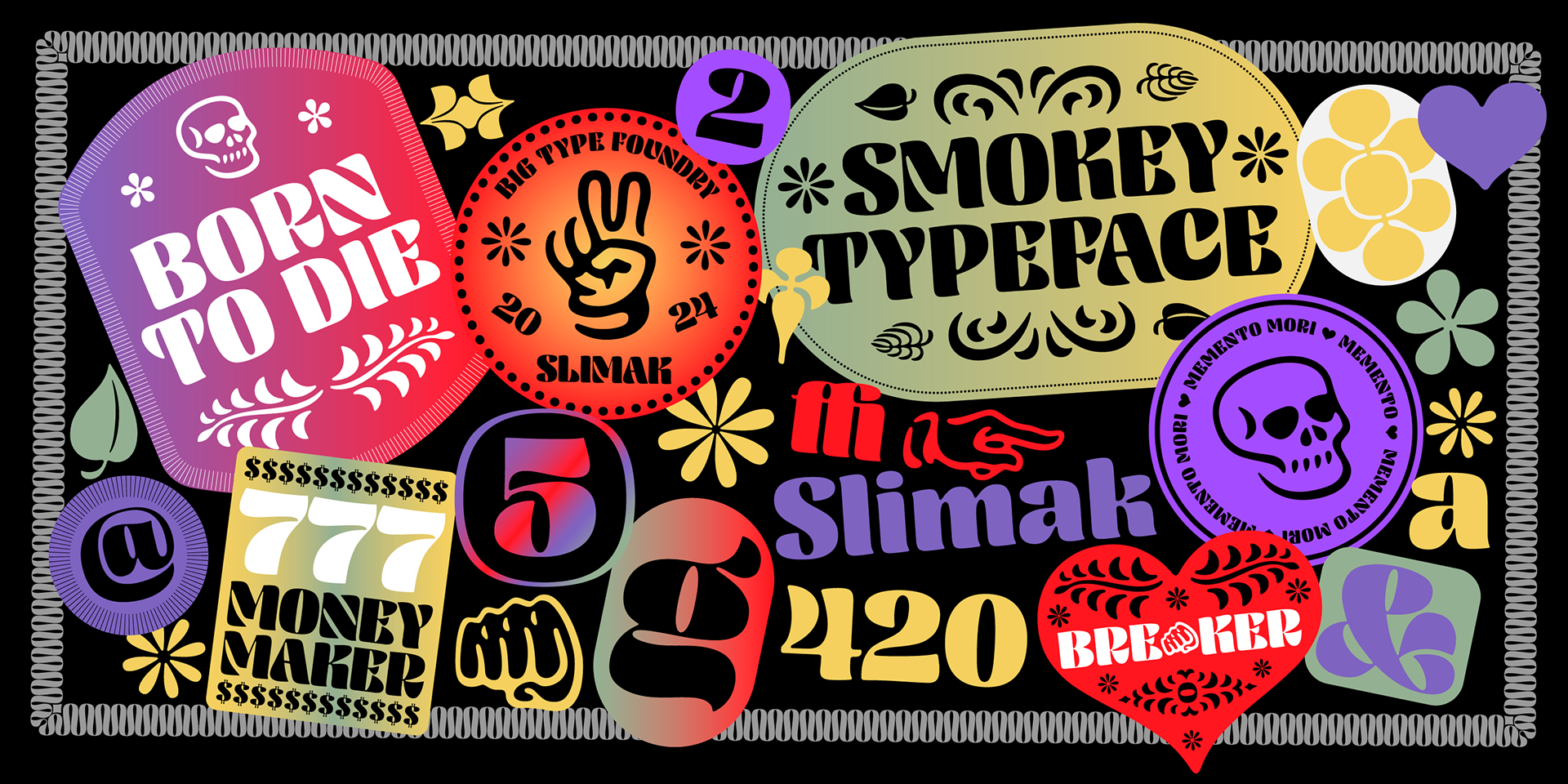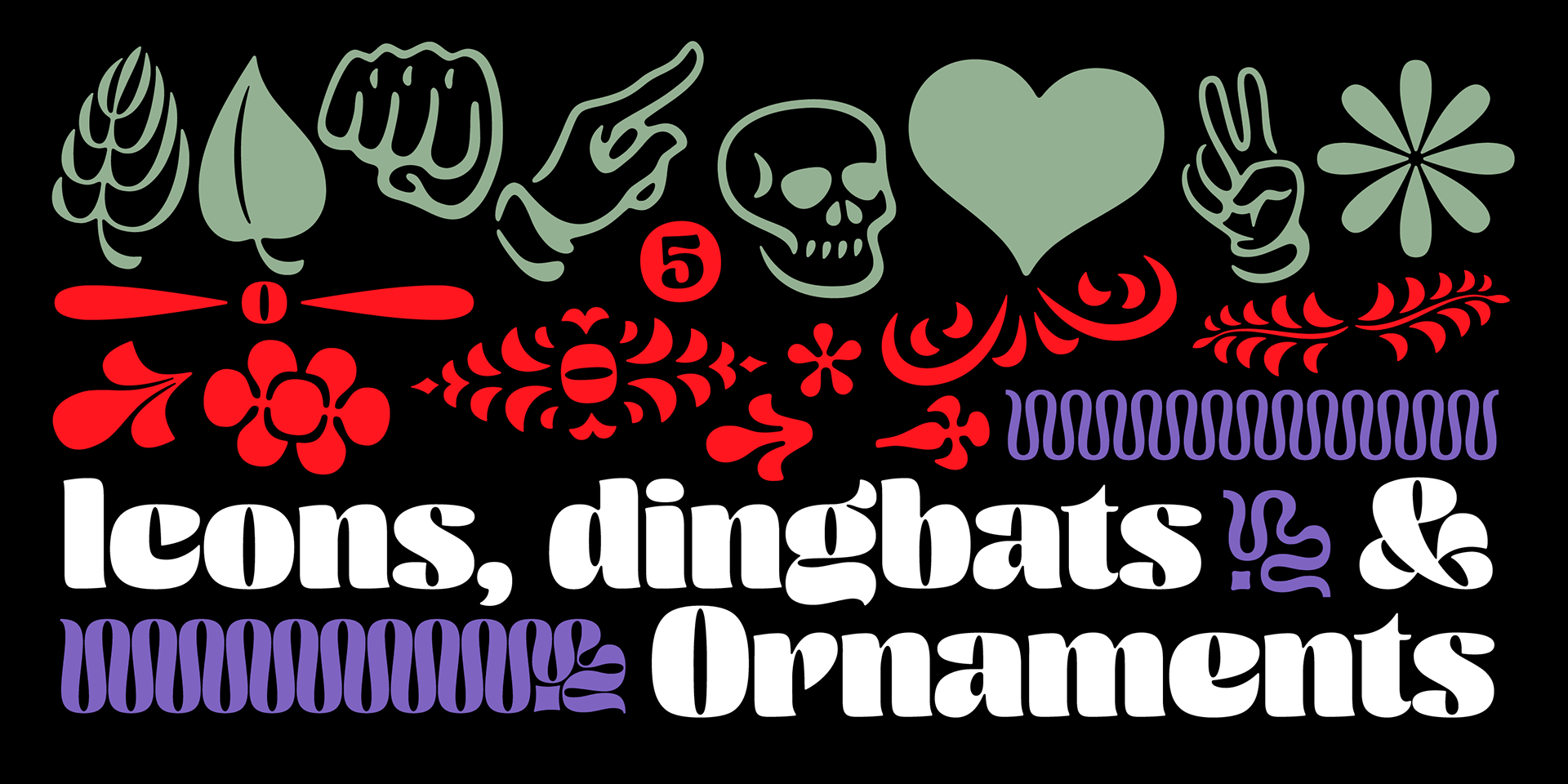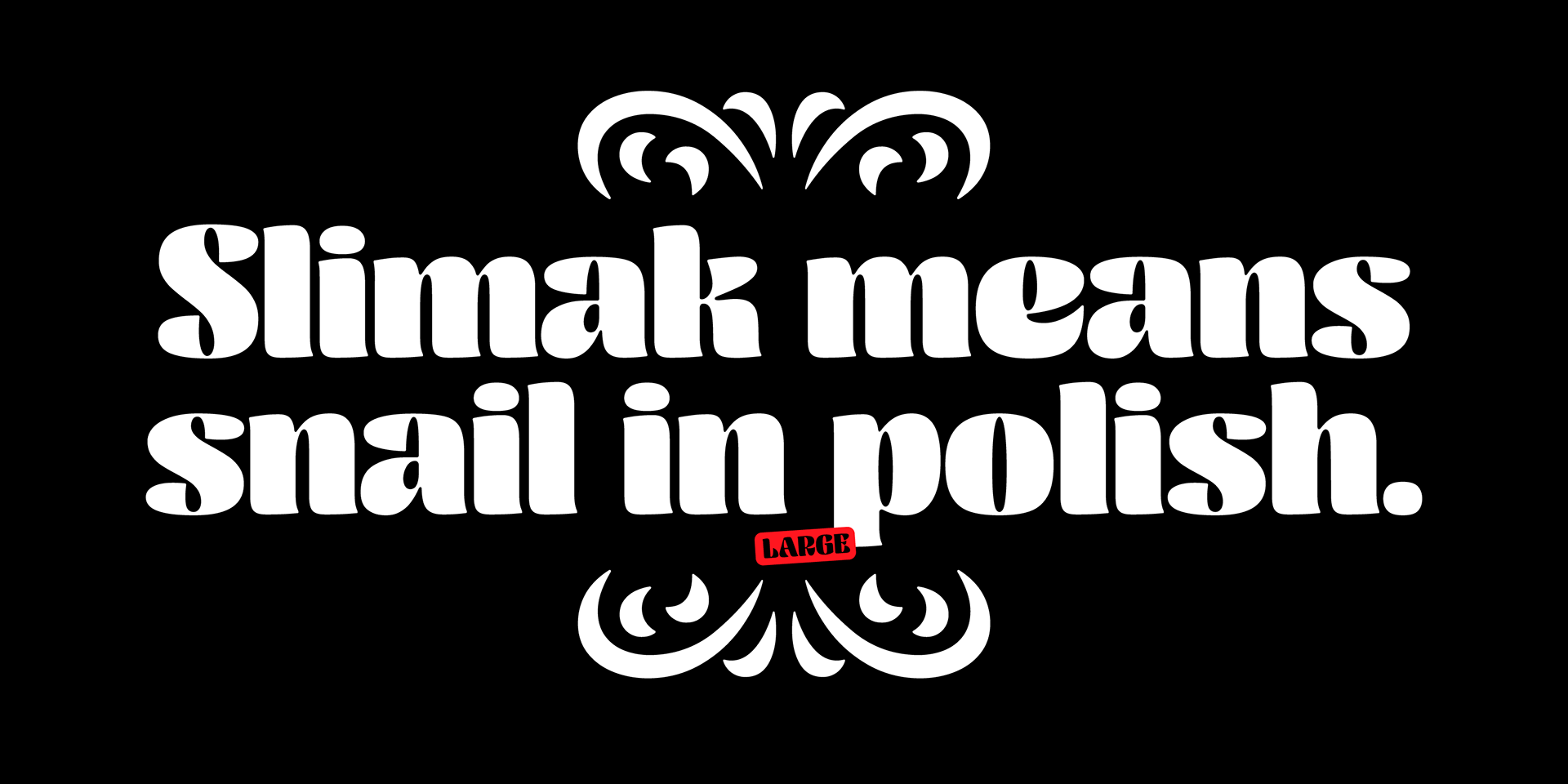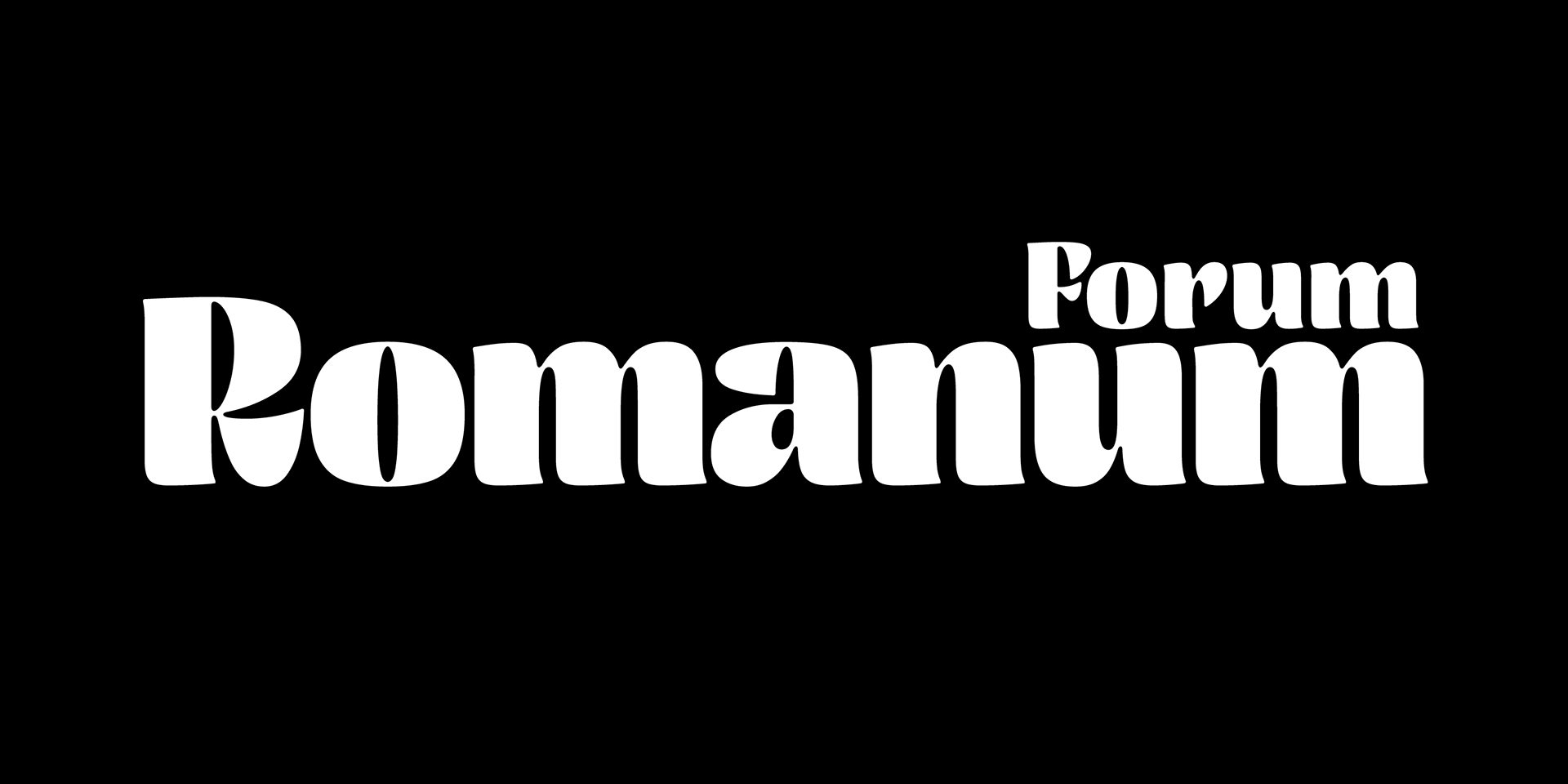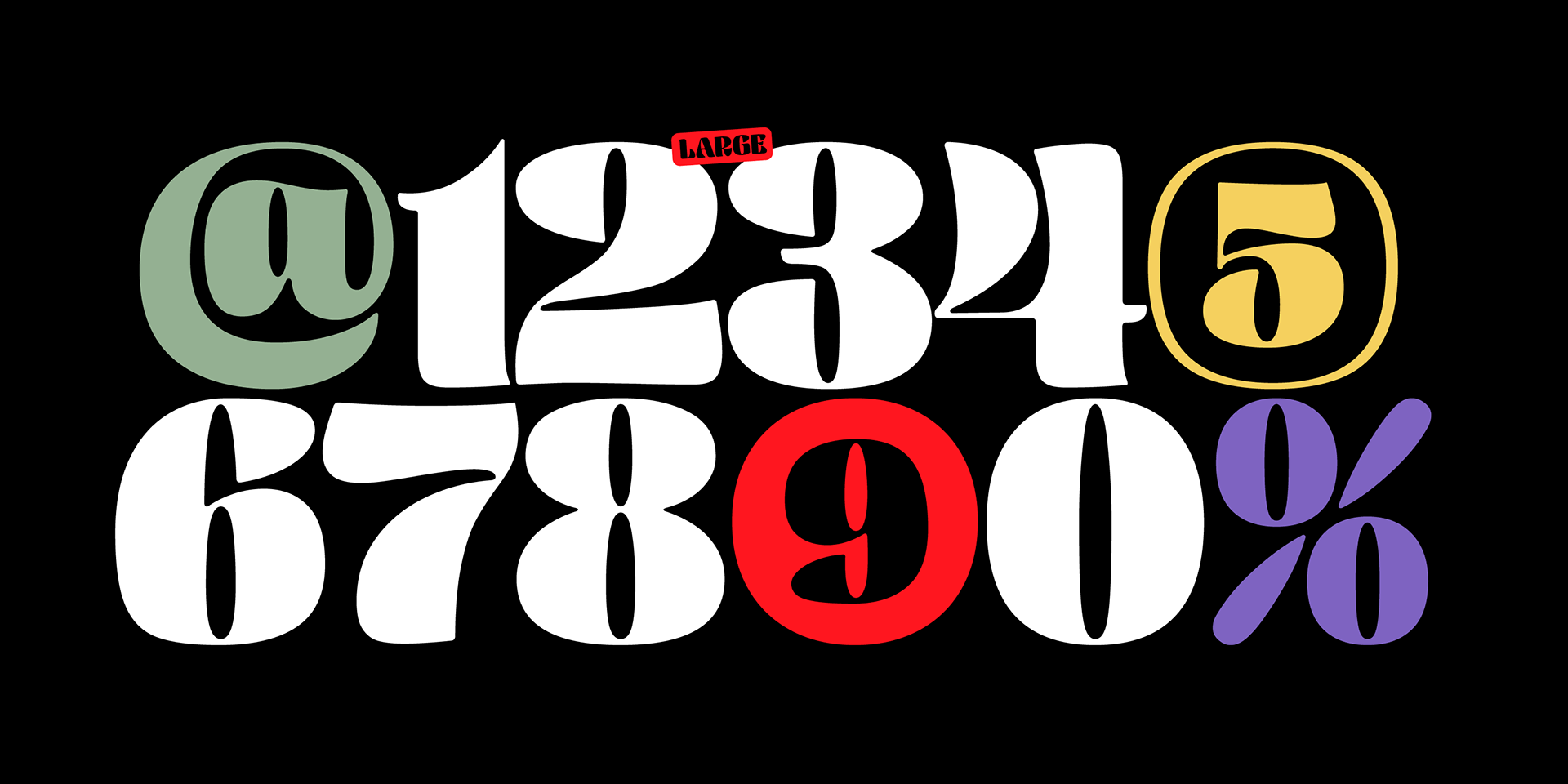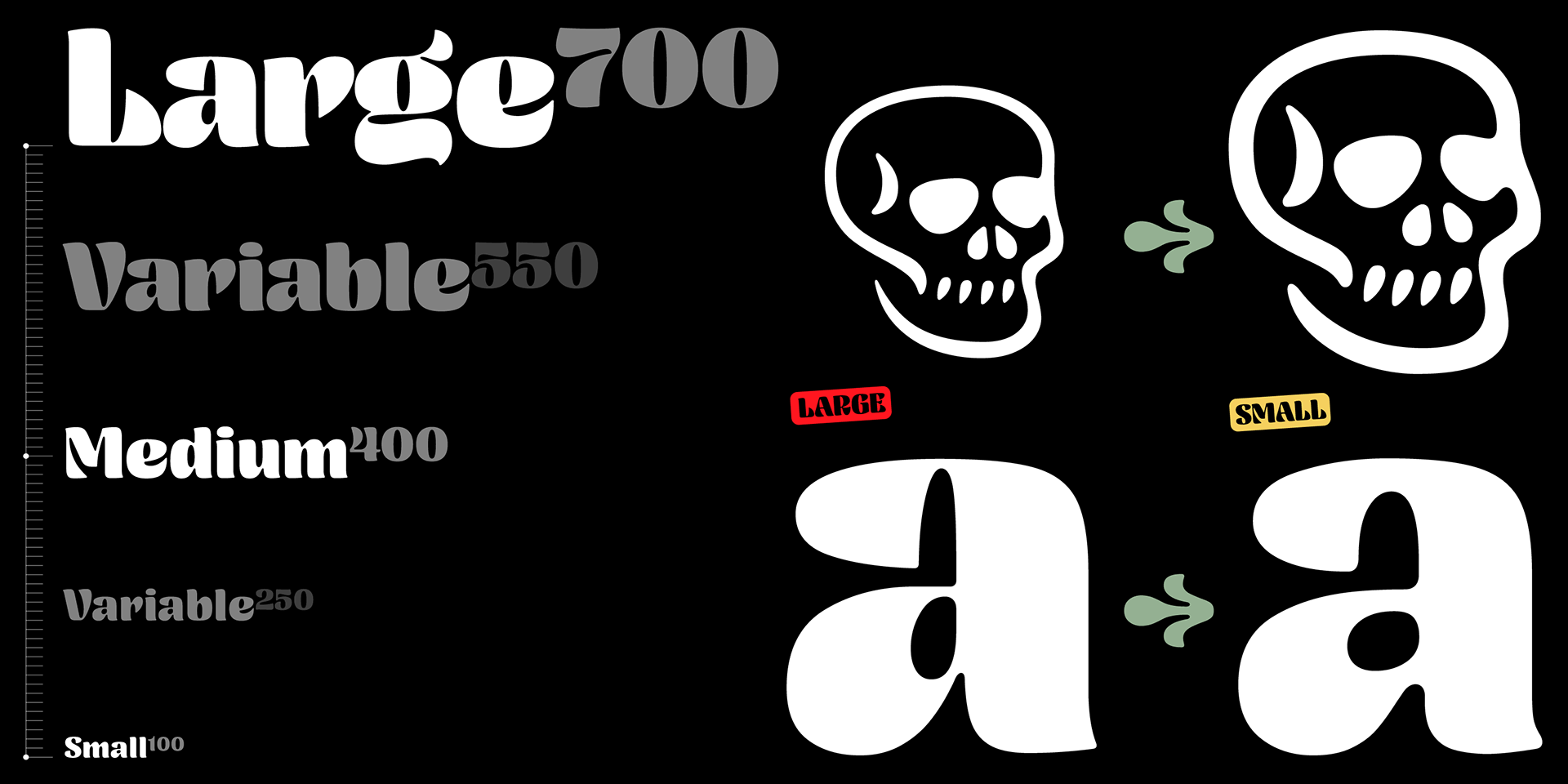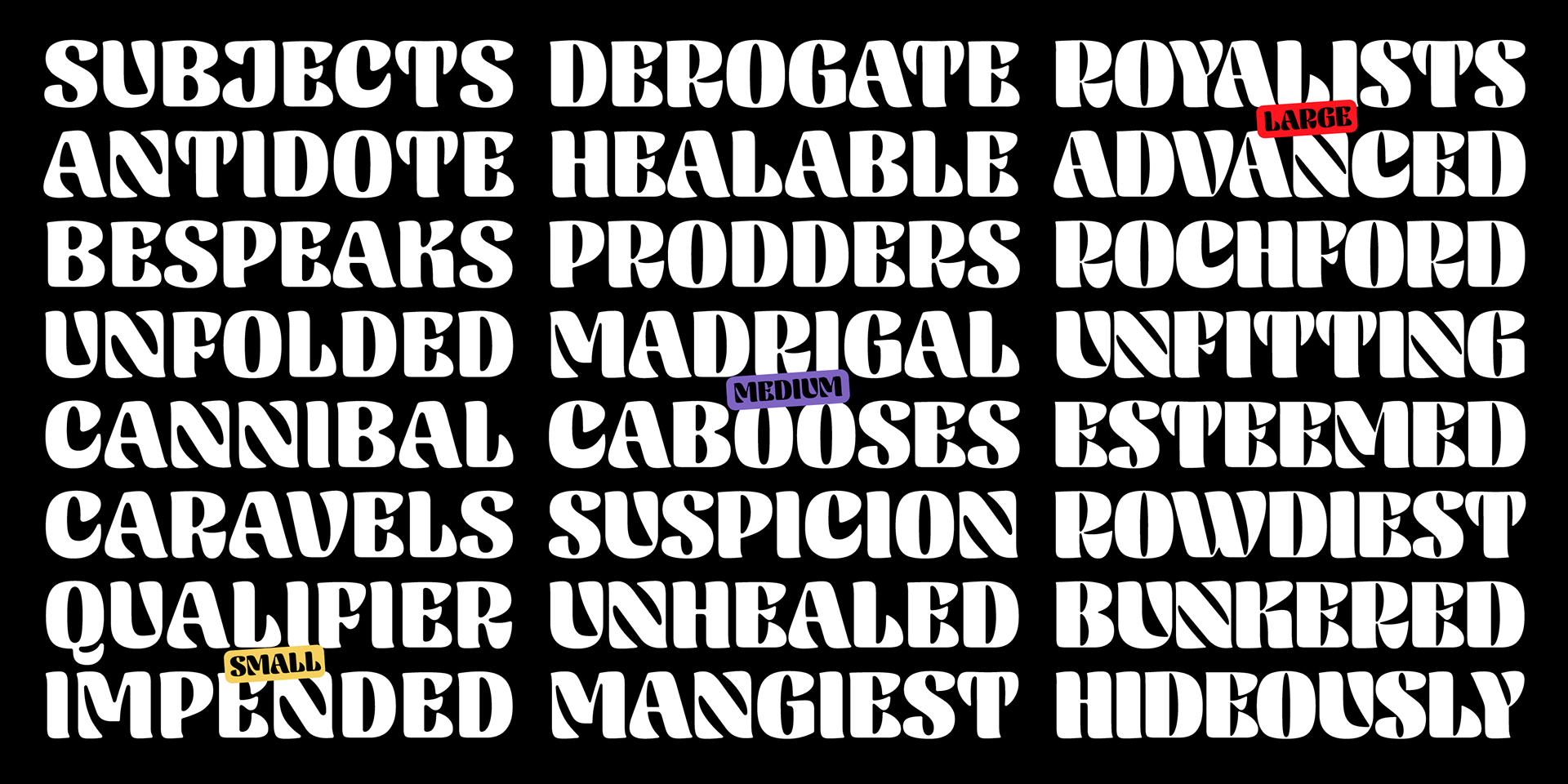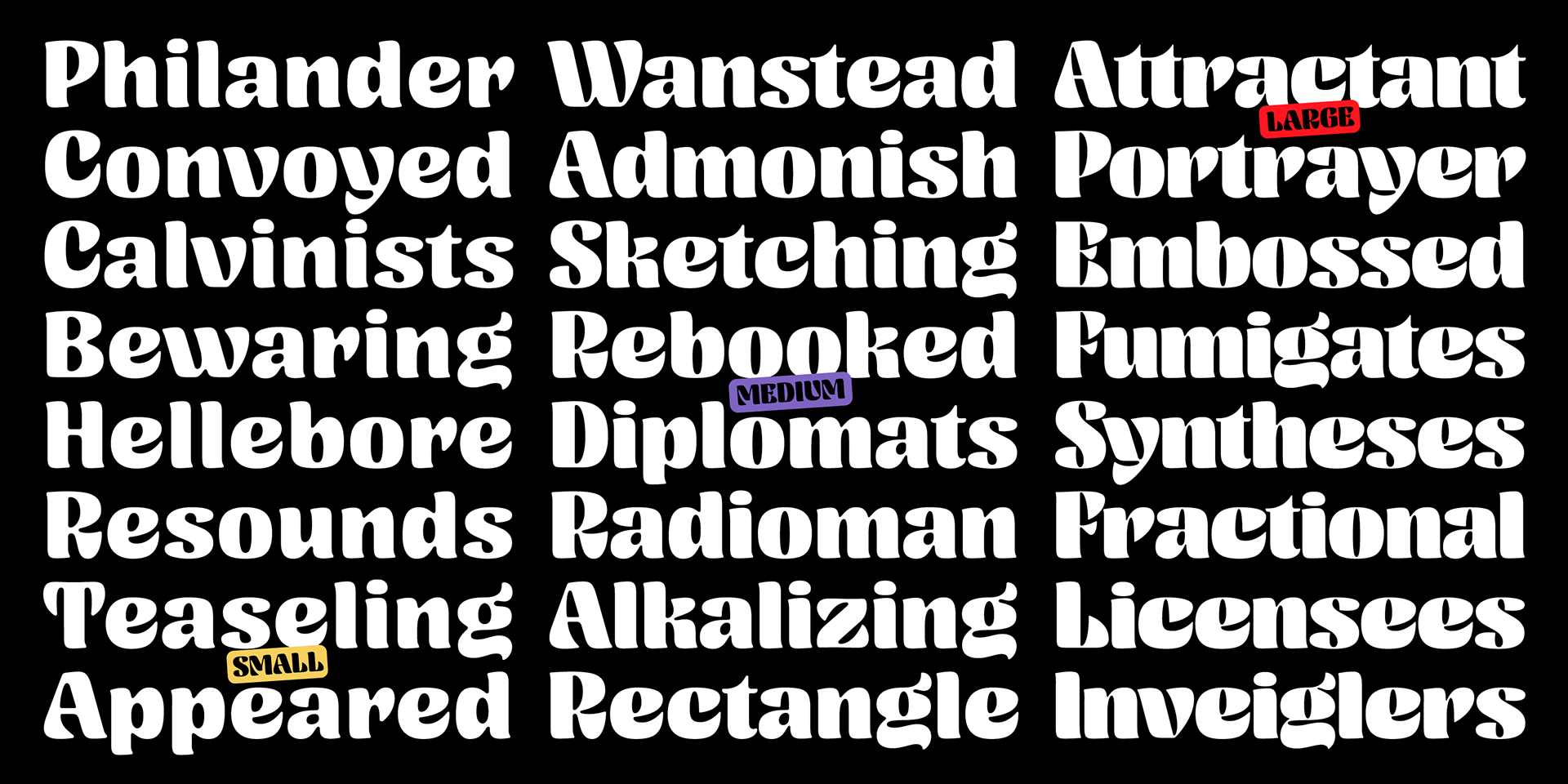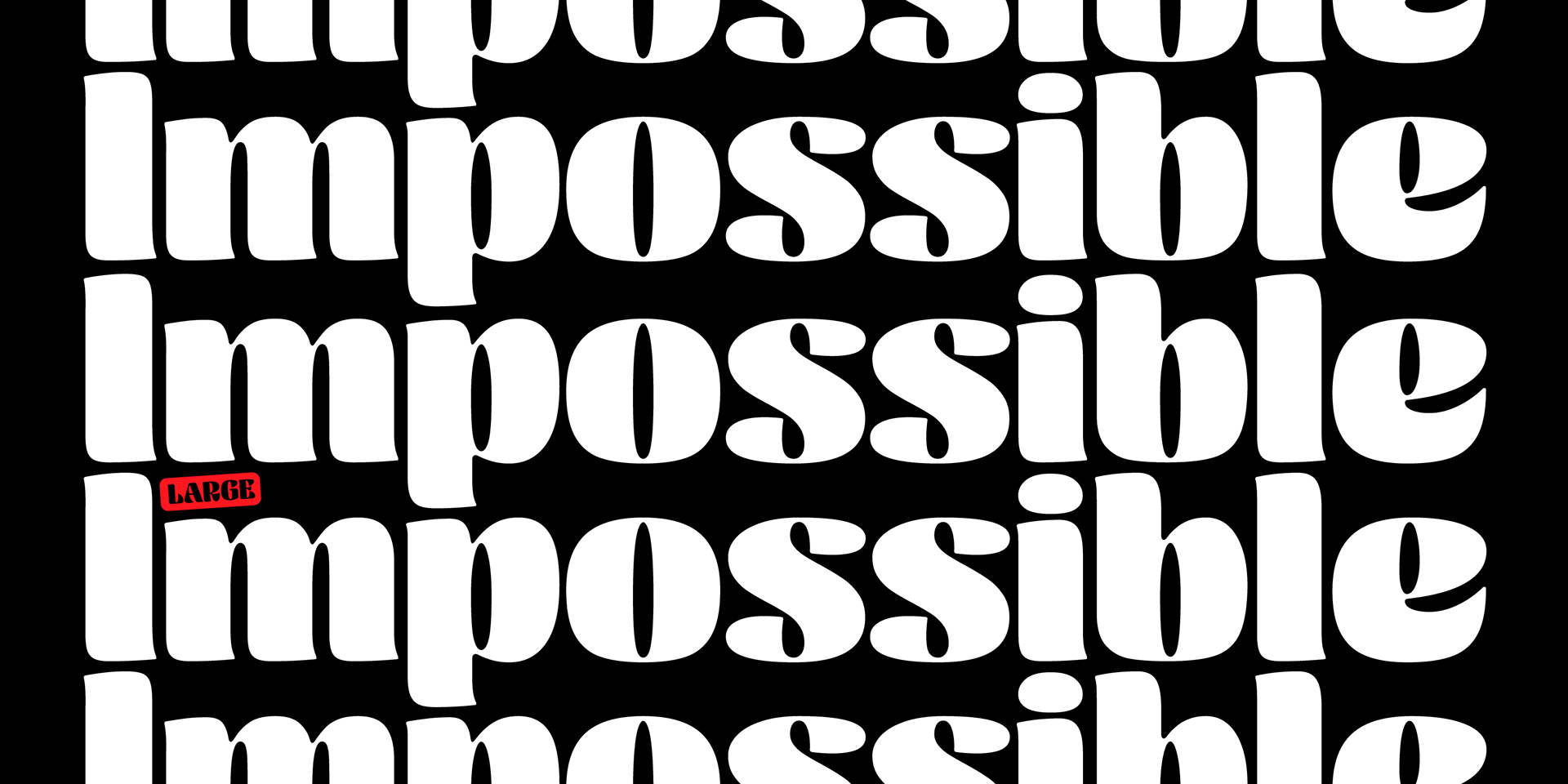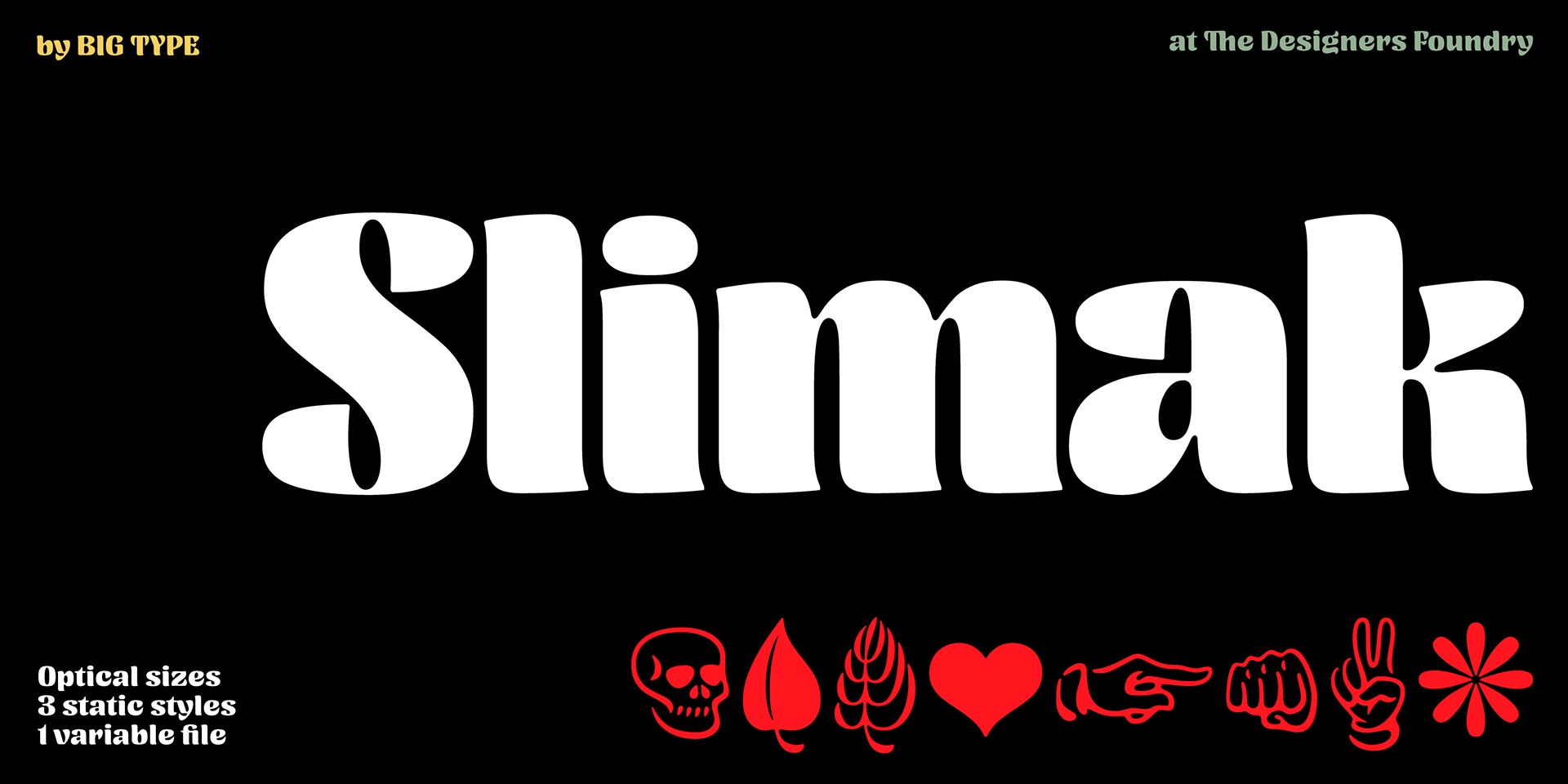
Slimak
Type family
The fatface genre originated in the early 19th century during the Industrial Revolution in Britain. As industries and cities rapidly grew, so did the demand for eye-catching advertising materials. This led to the creation of bold, high-contrast typefaces designed to capture attention from afar on posters, signs, and other printed materials.
Slimak is a fatface type family with strong terminals, designed in three optical sizes to ensure perfect readability across various contexts. It features rounded corners, which add a friendly and approachable touch to its bold and dramatic letterforms. The typeface is enriched with calligraphic details, offering a subtle elegance that contrasts beautifully with its high-impact weight.
One of the distinguishing characteristics of this type family is its very high x-height, which enhances legibility and gives the typeface a modern, robust appearance. This high x-height also ensures that text remains readable even at smaller sizes.
In addition to its letterforms, Slimak includes a variety of icons, dingbats, and ornaments. These elements are designed to complement the typeface’s style. Whether used in branding, editorial design, or digital interfaces, these extras provide designers with a toolkit for creating unique and cohesive visual compositions.